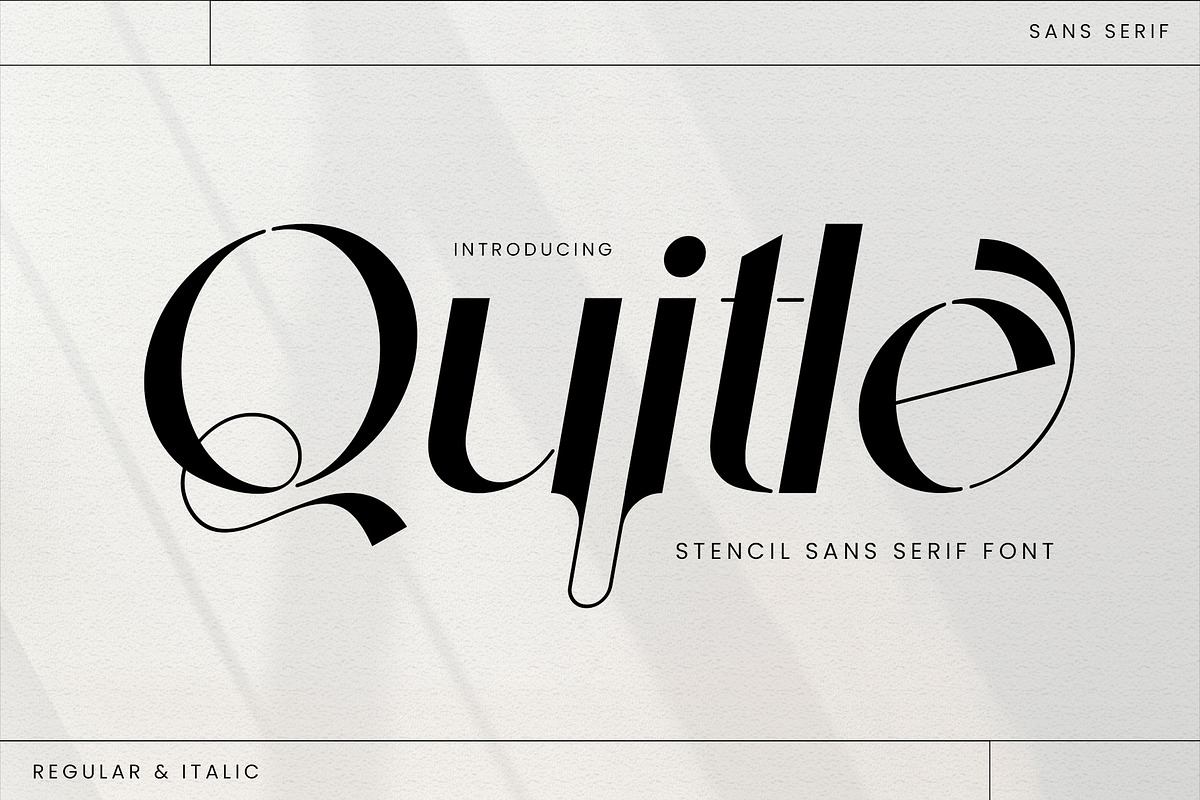
Quitle Sans Serif Font Free Download is a sleek, modern typeface designed with clarity and simplicity in mind. Featuring clean lines, minimal design, and excellent legibility, Quitle is perfect for branding, editorial layouts, websites, logos, and advertising materials that need a sophisticated, professional touch.
Its versatile design works well across both print and digital platforms, offering a contemporary, polished look that enhances readability without sacrificing style. Whether you're creating a corporate identity or building a sleek user interface, Quitle delivers a fresh and streamlined approach to typography.